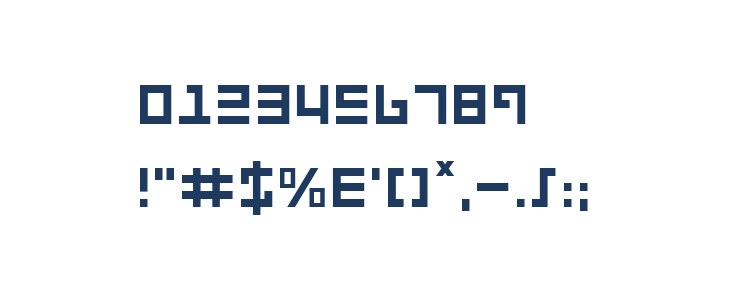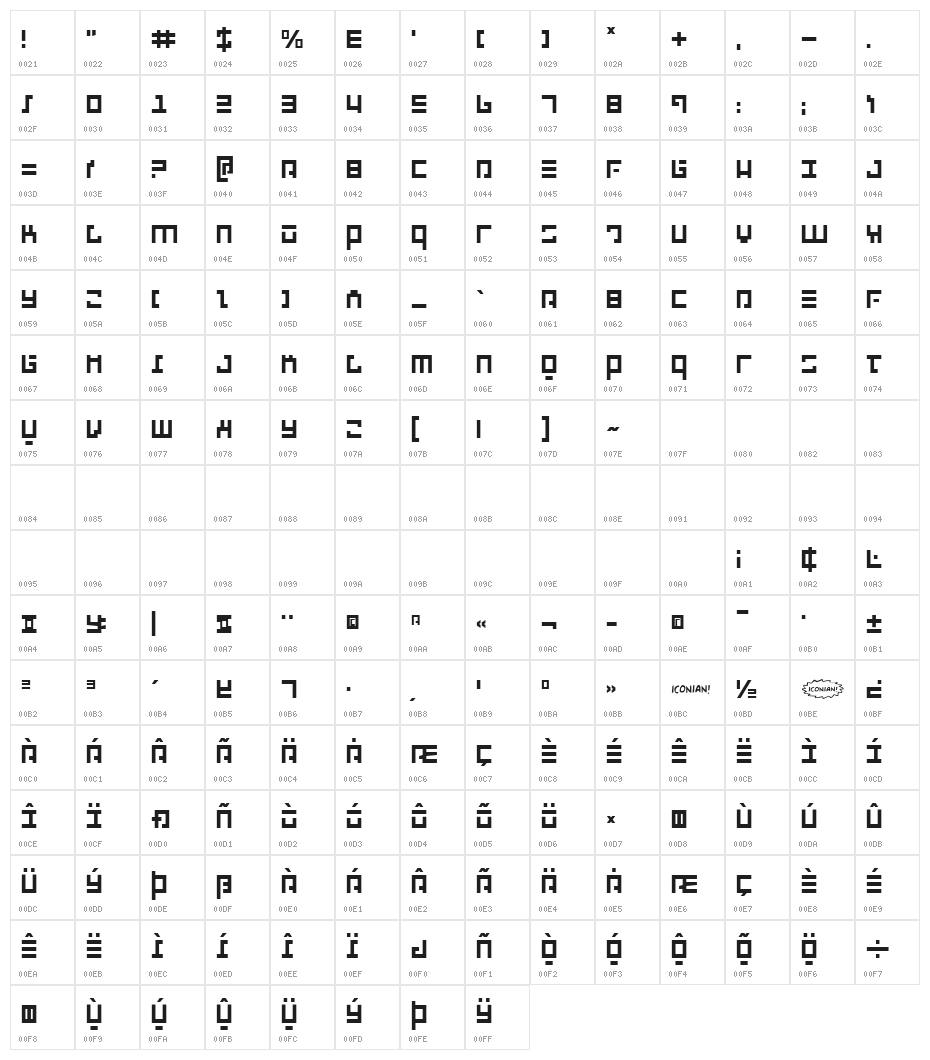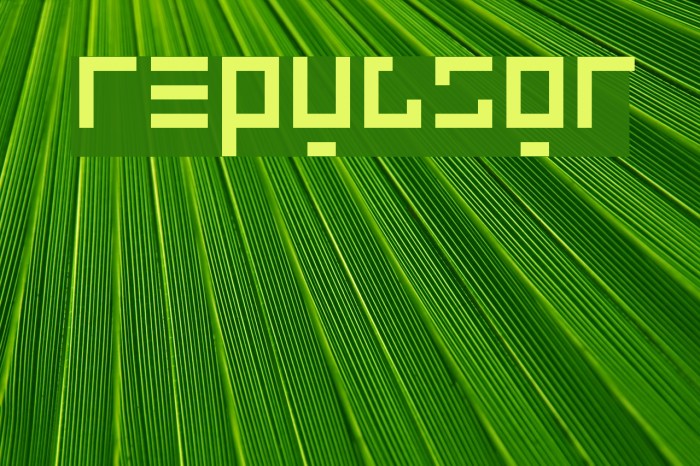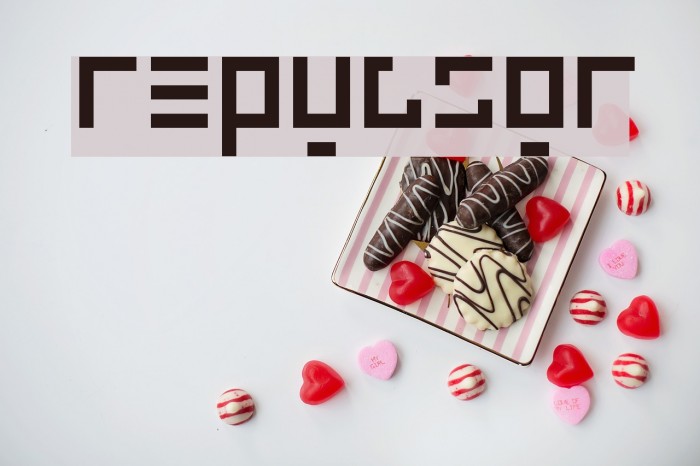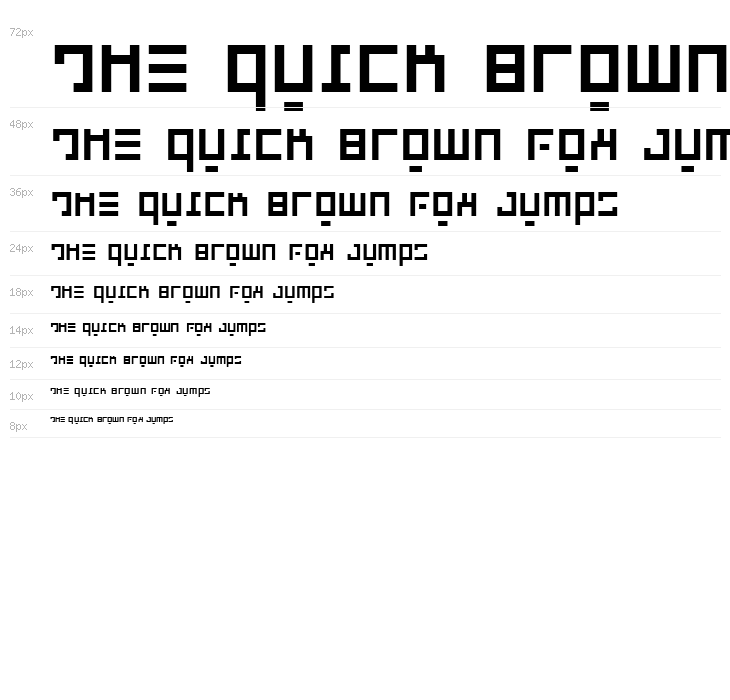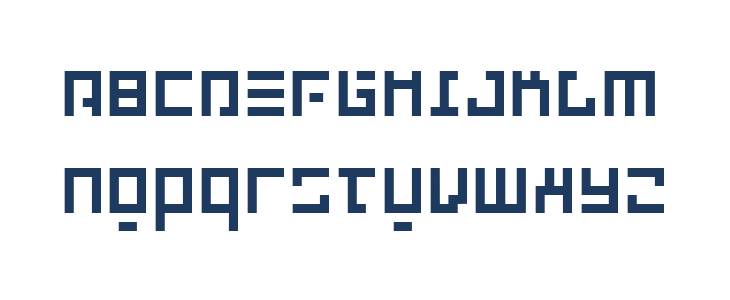
Repulsor Font
Repulsor Description
This font features a bold, geometric design with a futuristic and digital aesthetic. Each character is constructed with a series of straight lines and right angles, giving it a blocky and mechanical appearance. The uniform stroke width across all characters contributes to a cohesive and structured look. The uppercase and lowercase letters maintain a consistent style, with the lowercase being slightly smaller but equally bold. Numbers and special characters follow the same design principles, ensuring visual harmony throughout. The font's distinct style makes it highly recognizable and suitable for modern, tech-oriented projects.
| Proposed Projects | Ideal for technology branding, video game titles, sci-fi movie posters, and digital interfaces. |